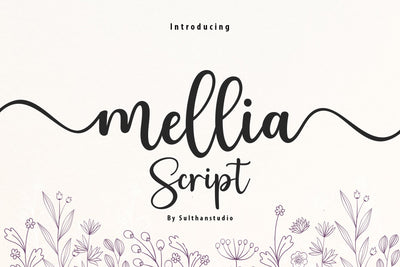
Mellia
Mellia Script is an elegant script font with a contemporary feel and perfect form, inspired by beautiful handwritten calligraphy. Neither too thin nor too bold, this font is designed to enhance the beauty of your projects. This font is PUA encoded which means you can access all the glyphs and sweeps easily!
Fonts that are equipped with uppercase and lowercase letters, numbers, punctuation, support for languages, swashes and ligatures.
This font will be beautiful for any of your work.